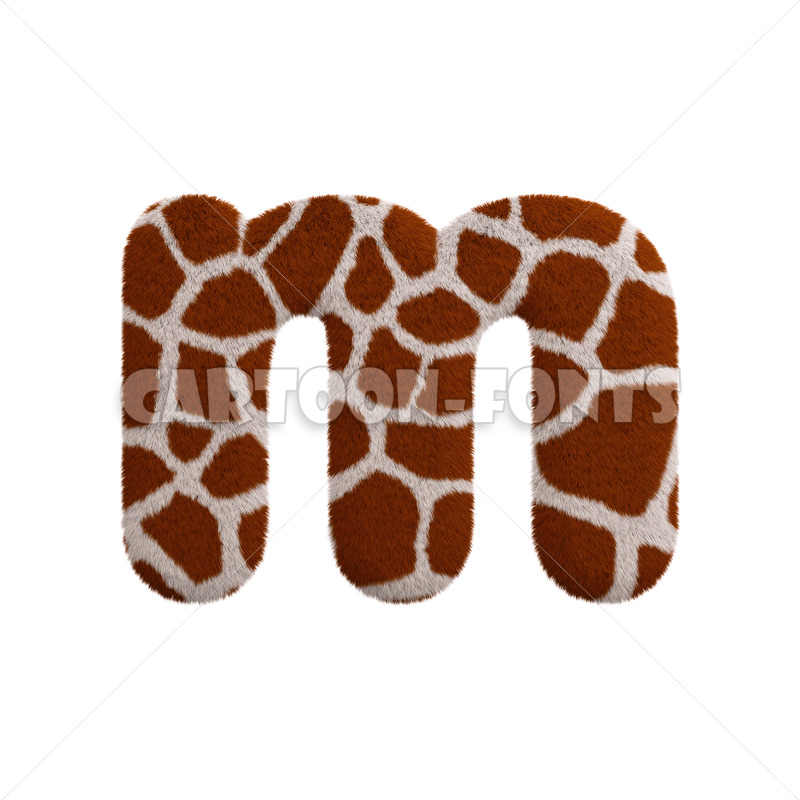
Giraffe fur character M - Lower-case 3d font
Giraffe fur character M
Giraffe fur character M illustration against a white background.
This is the perfect image for creative projects linked to Safari, Wildlife or Africa thematics.